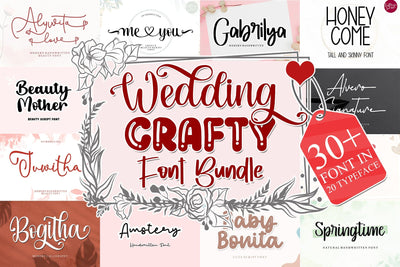
Wedding and Crafty Fontbundle
Wedding and Crafty Fontbundle is a collection of fonts by Letterafa Studio. 30+ font (20 typeface) in 1 package which contains modern calligraphy/script fonts, handwritten font and display font. I sell at special prices, it's all just for you.
That font is perfect for ; logos, greeting cards, a package design, a brand identity, craft design, any DIY project, book title, wedding invitation, packaging, and more.